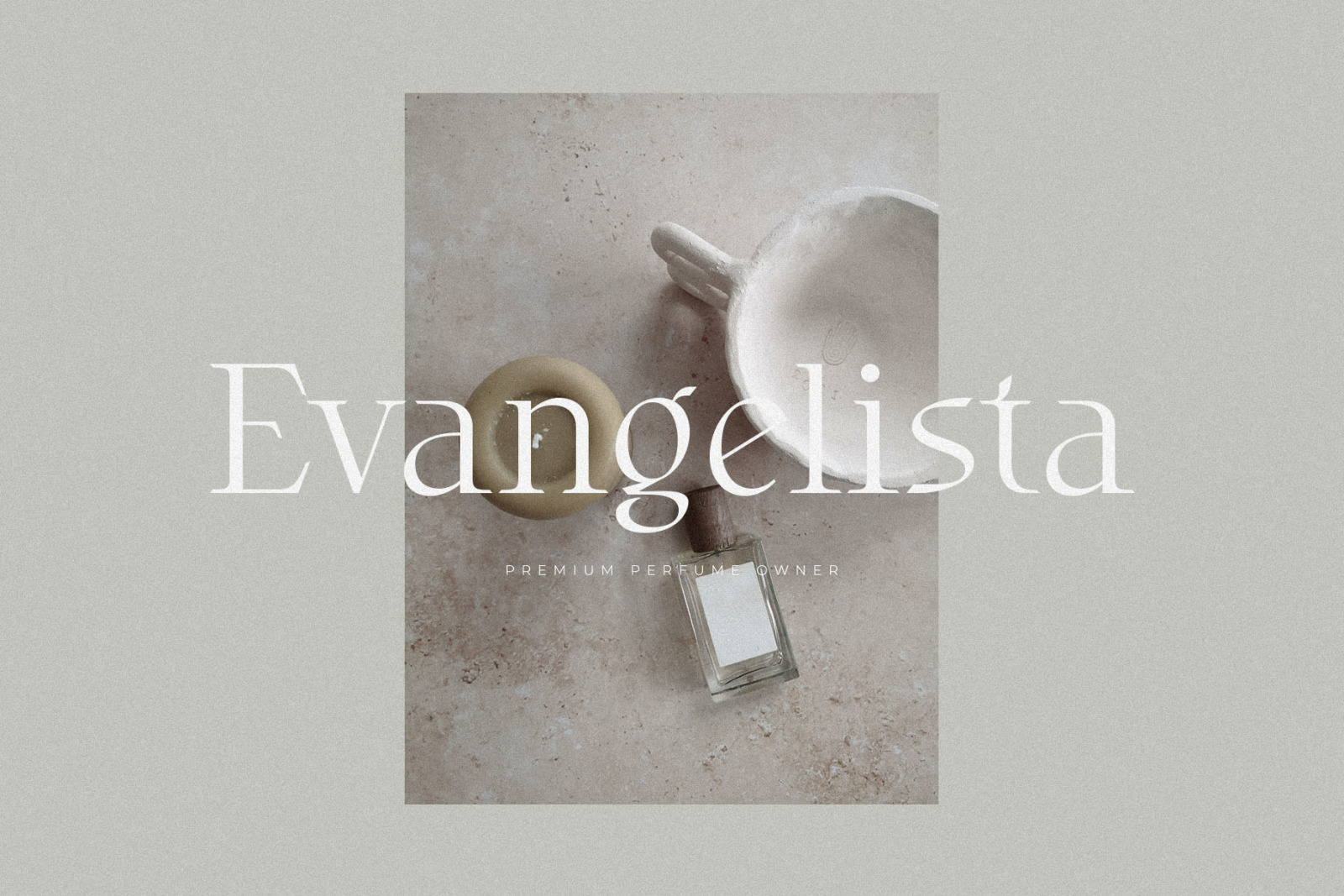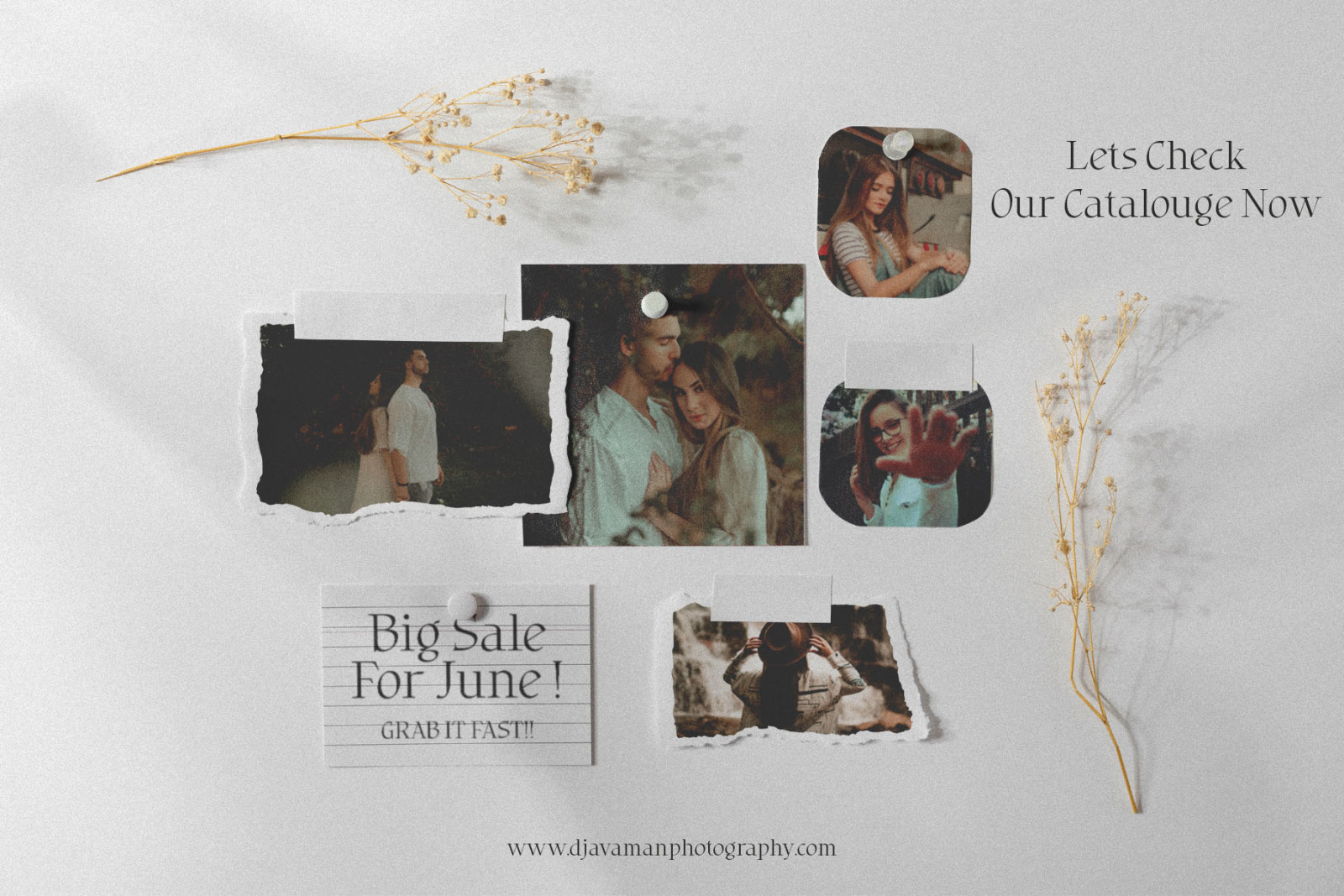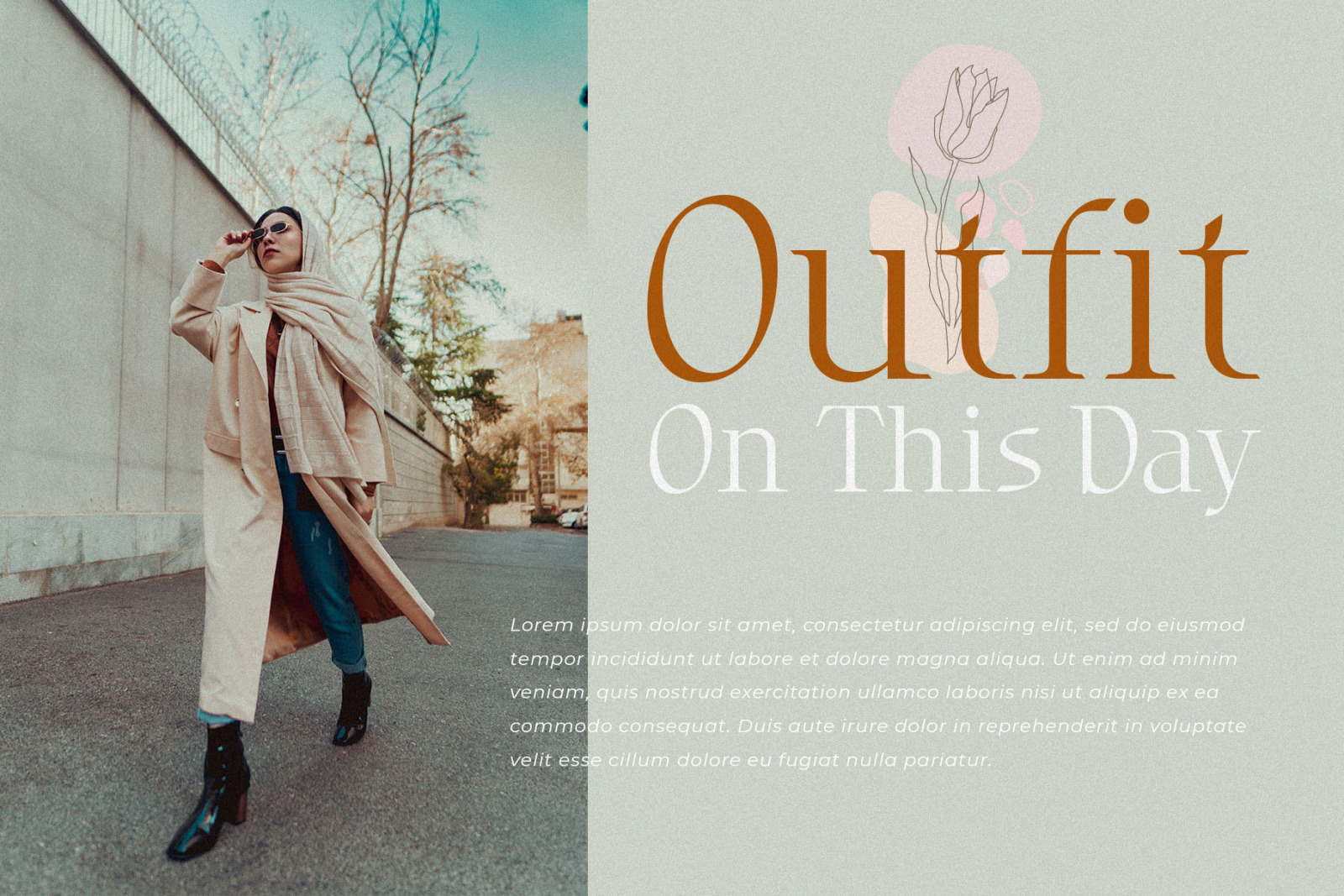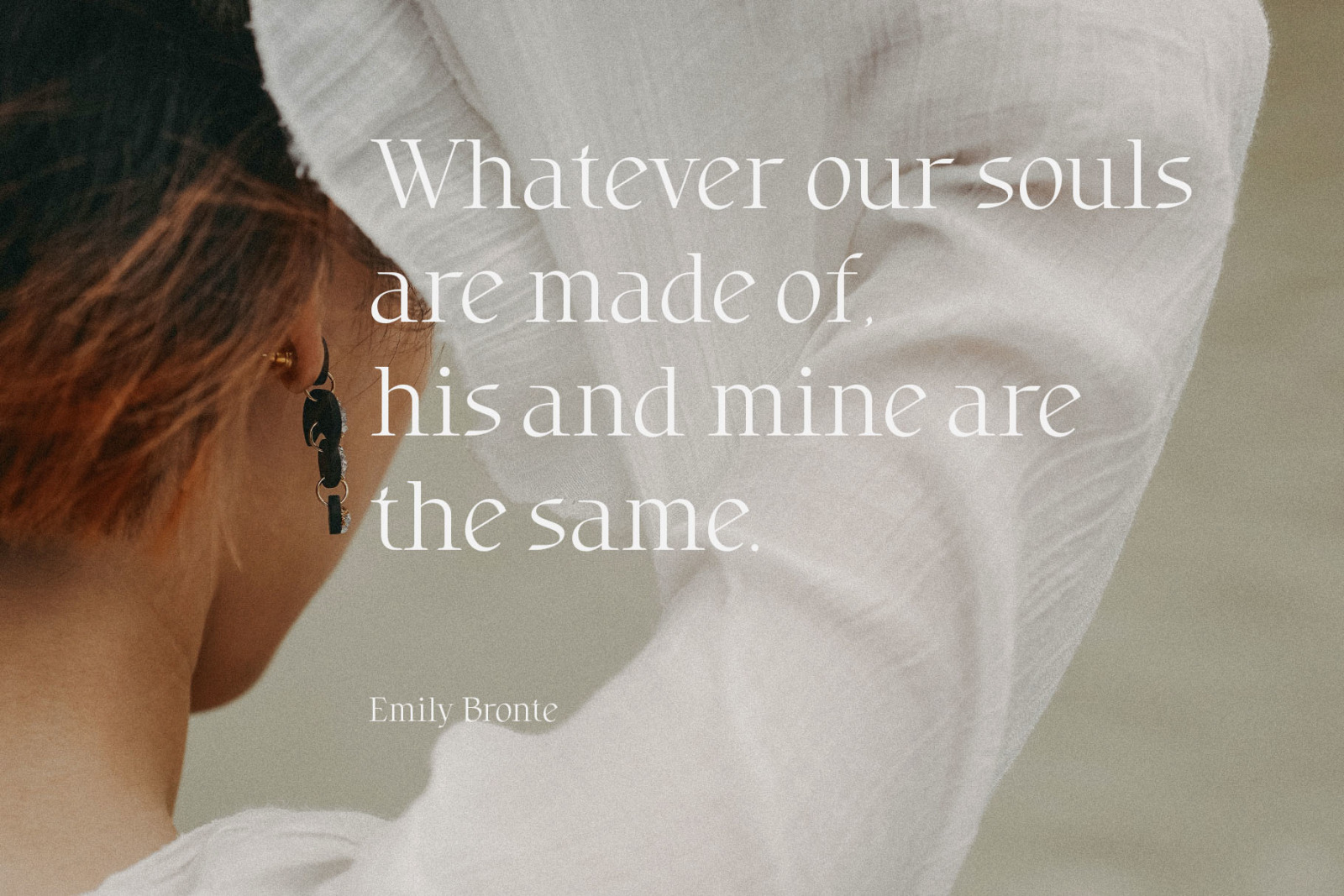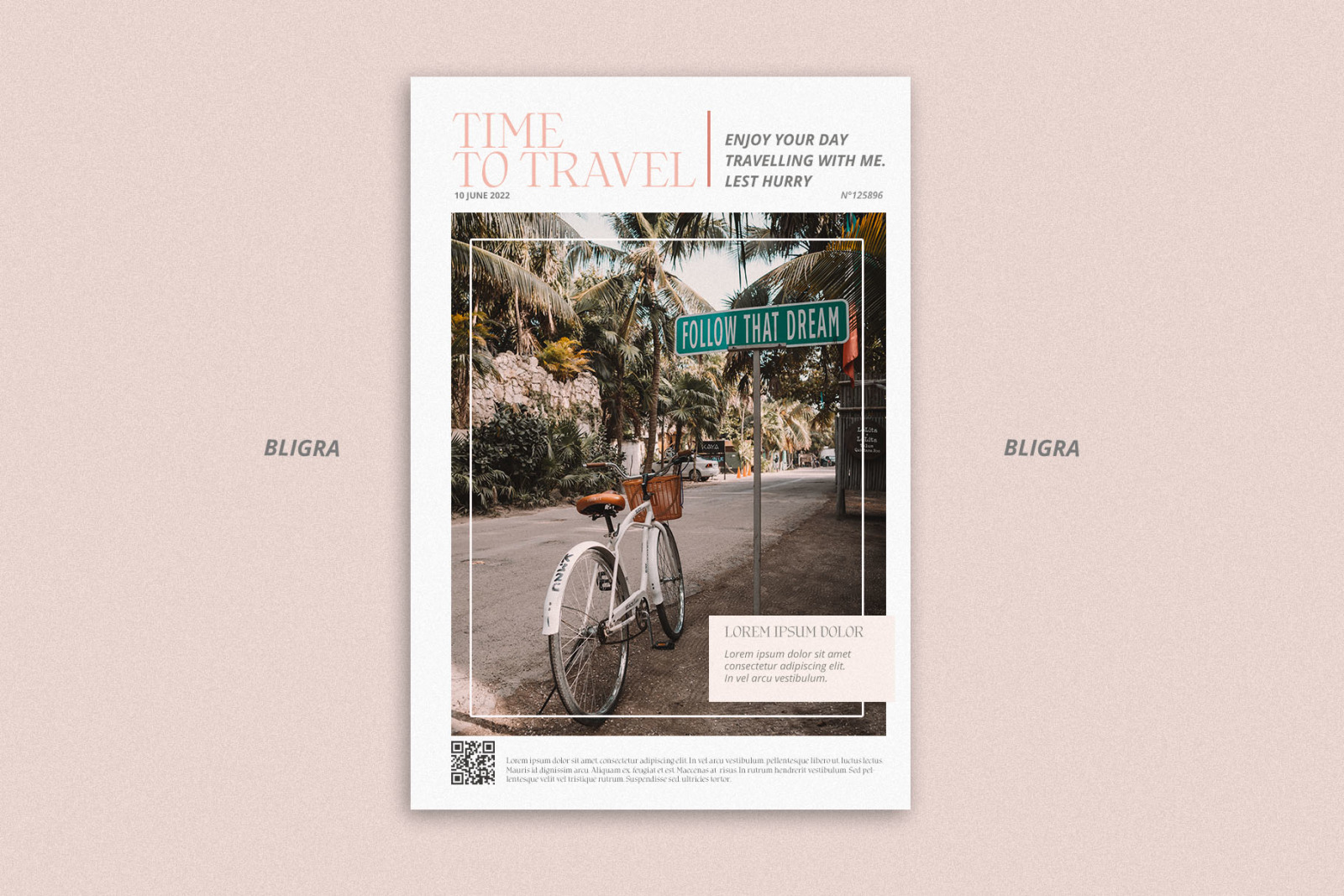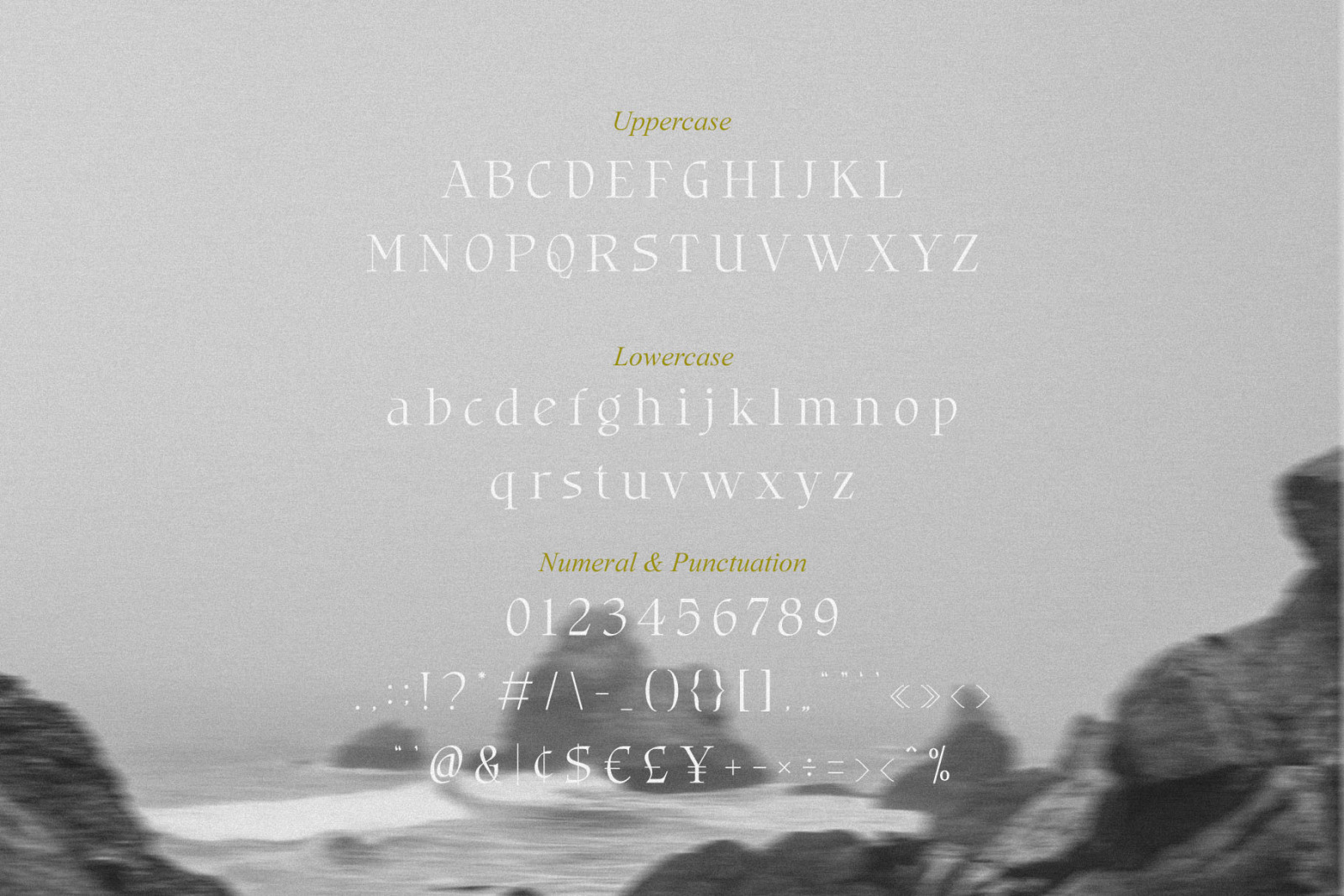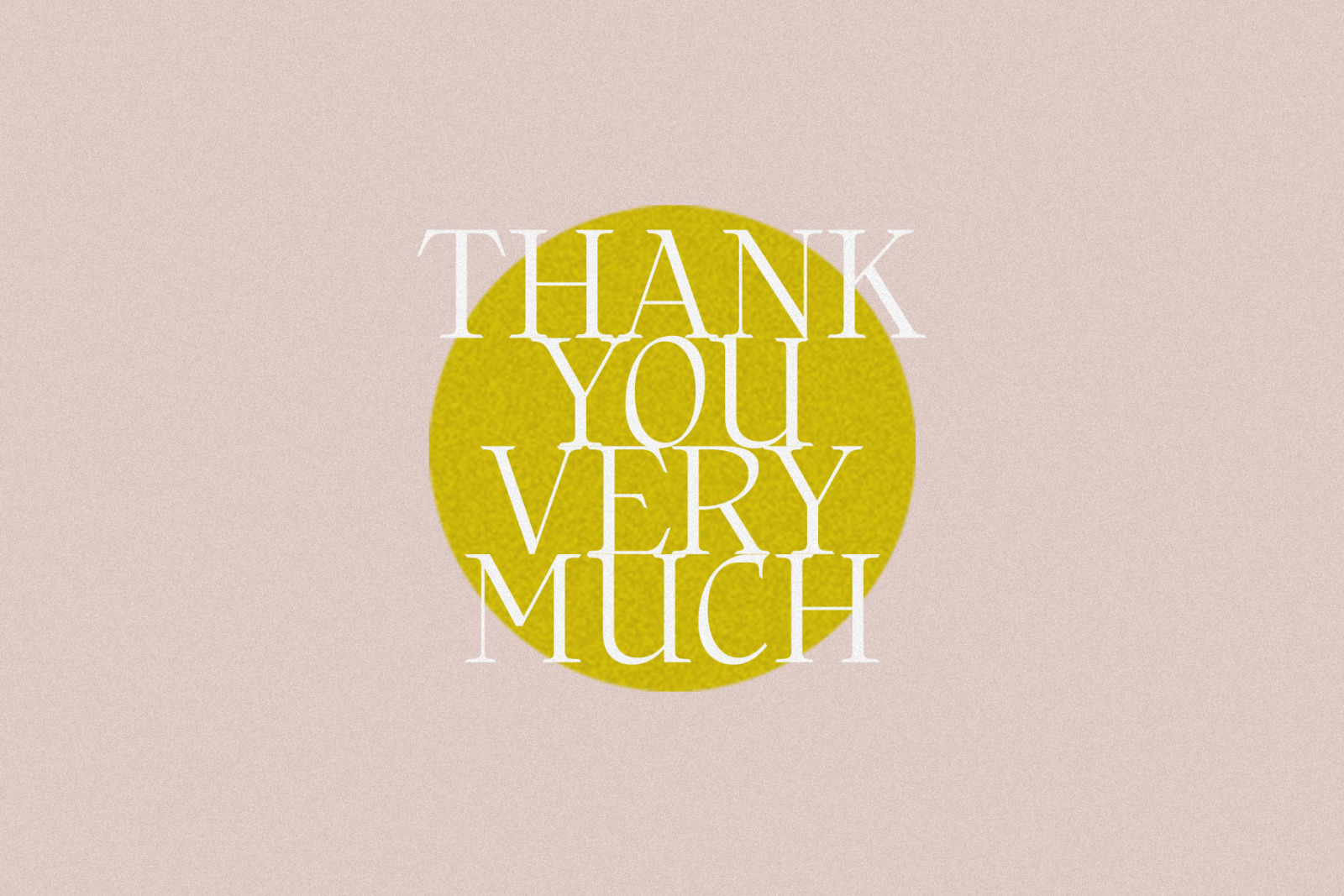
Bligra – Modern Serif Typeface
Introducing Bligra Modern Serif Typeface.
Bligra is a modern and stylish typeface, best used as a display for headings, logos, branding, magazines, product packaging and invitations. Bligra come with clean lines and smooth curves give any project an extra touch of class.